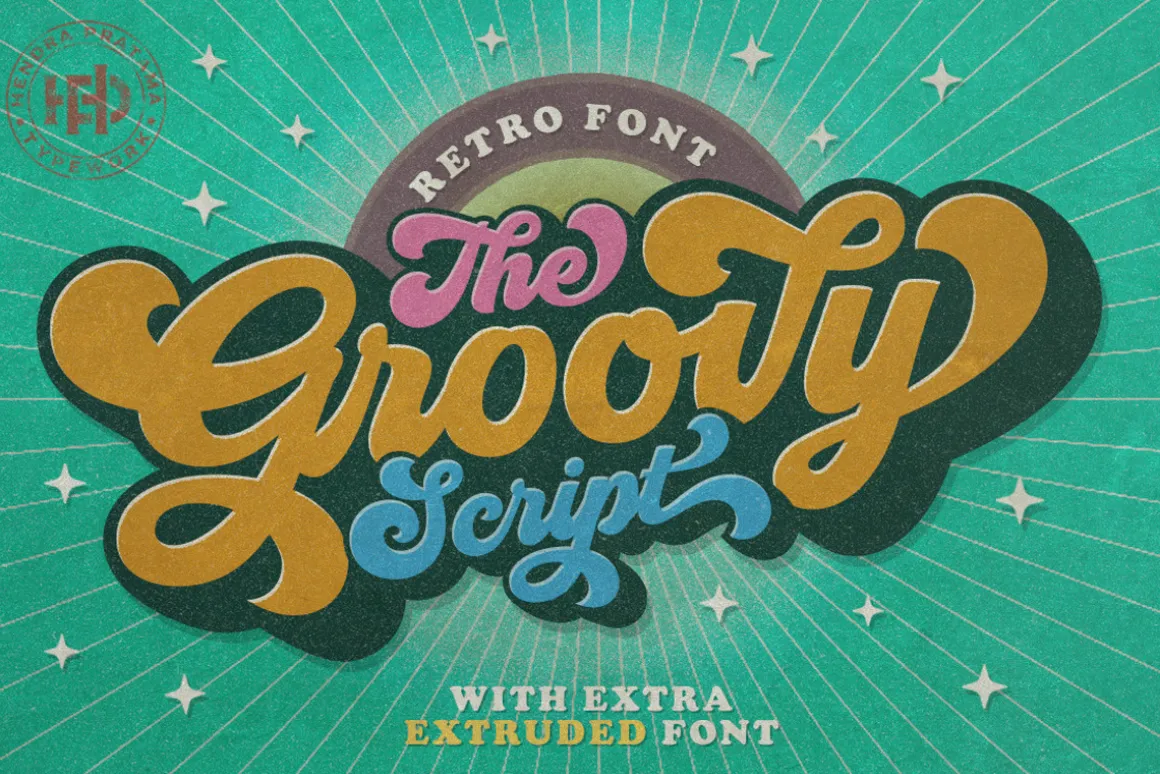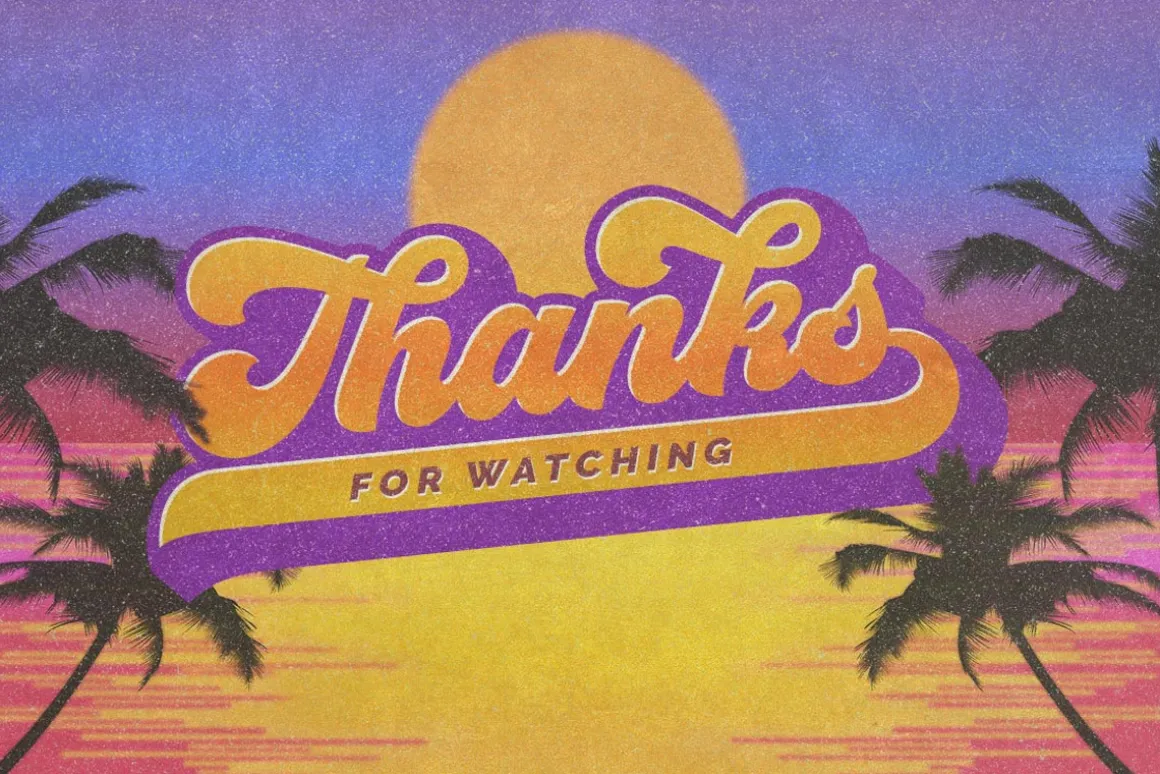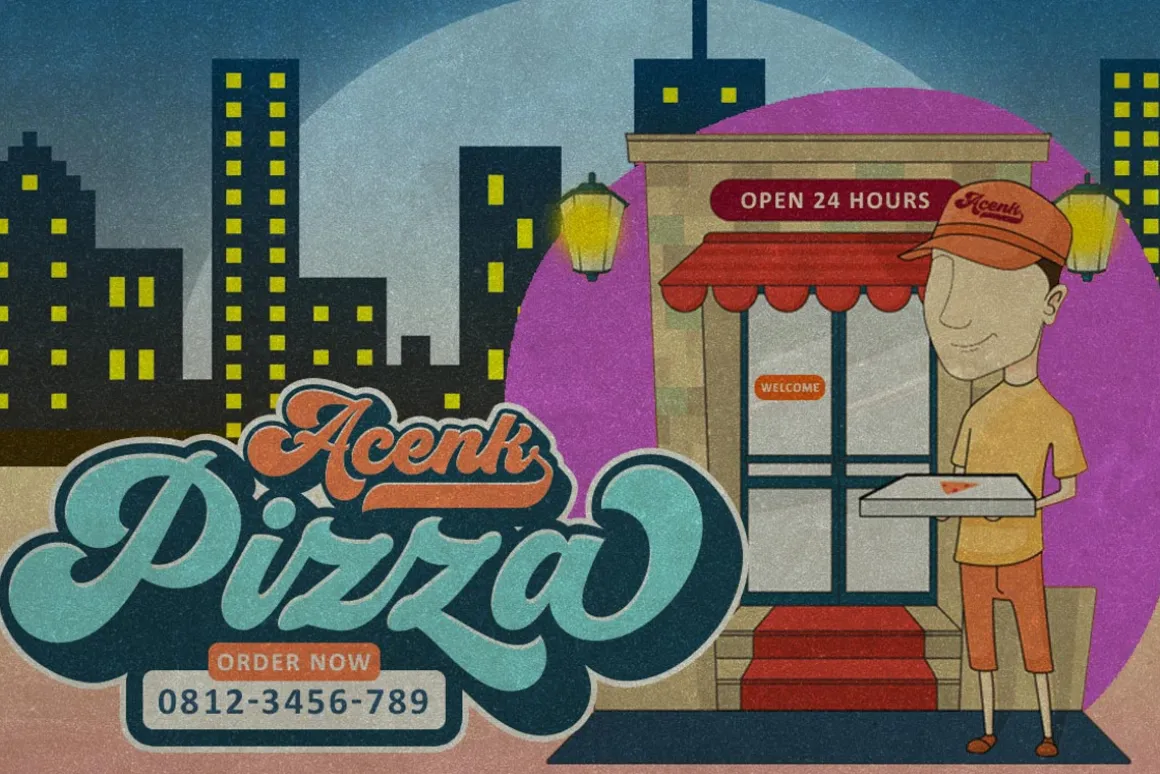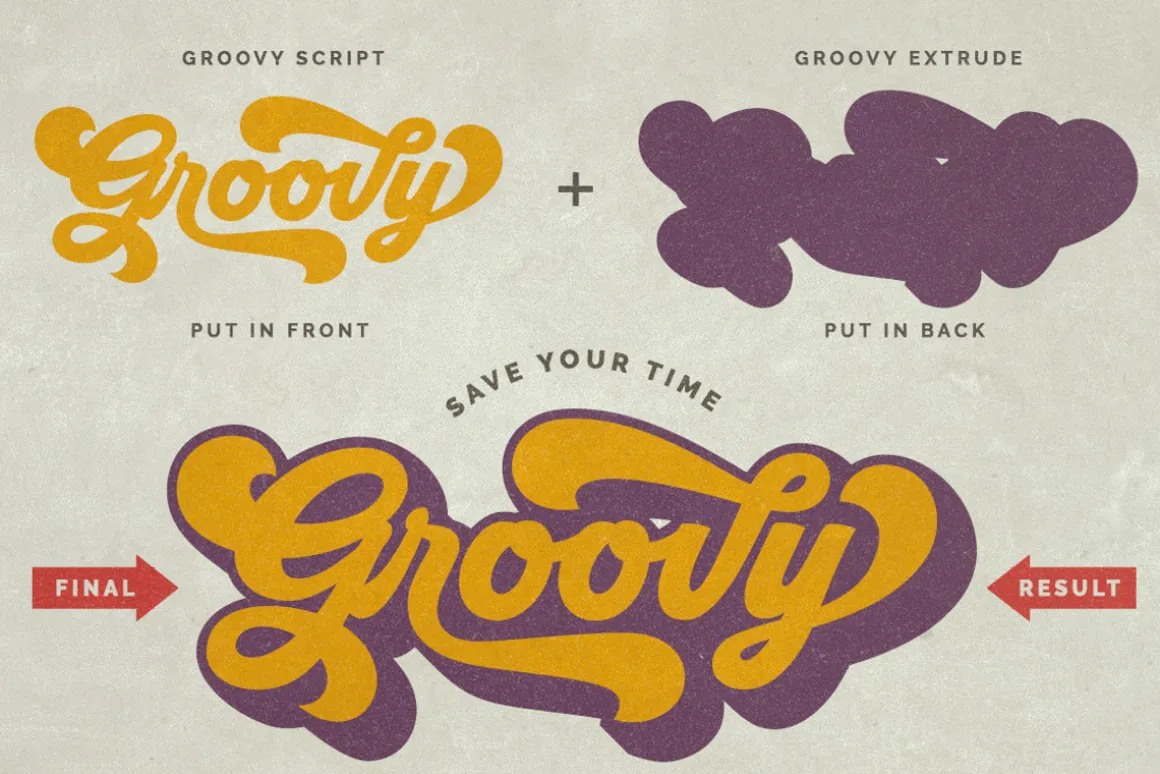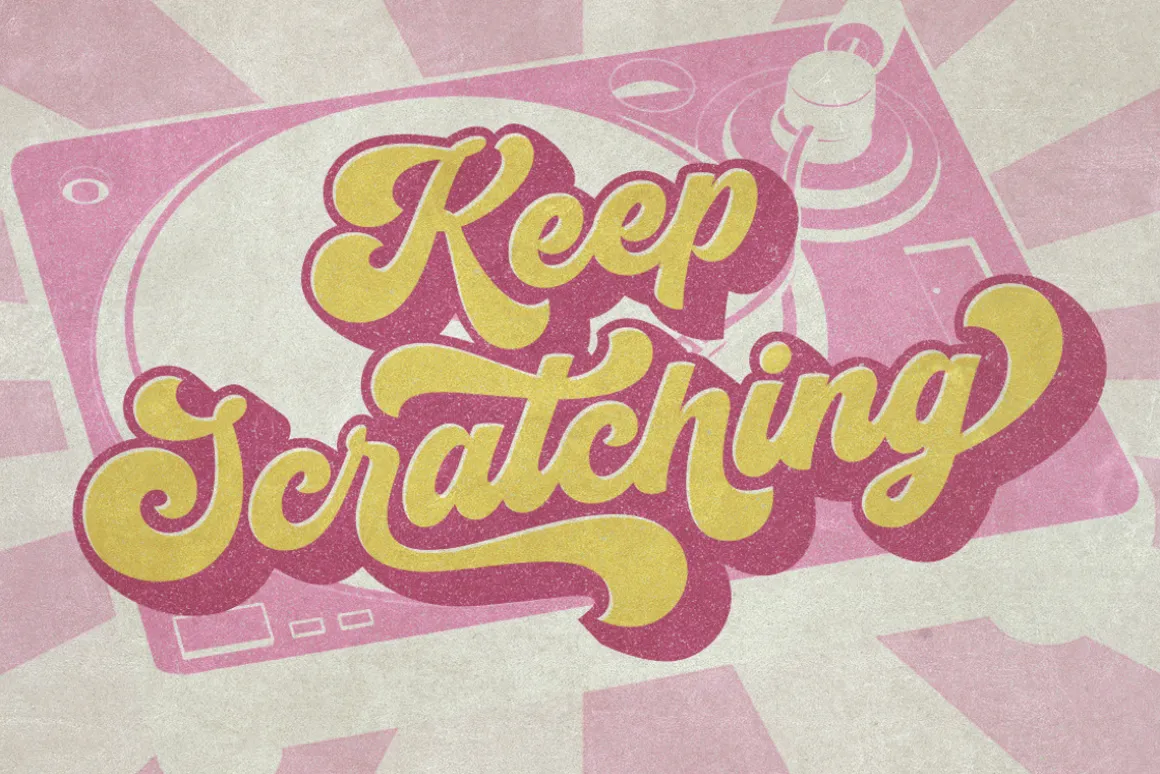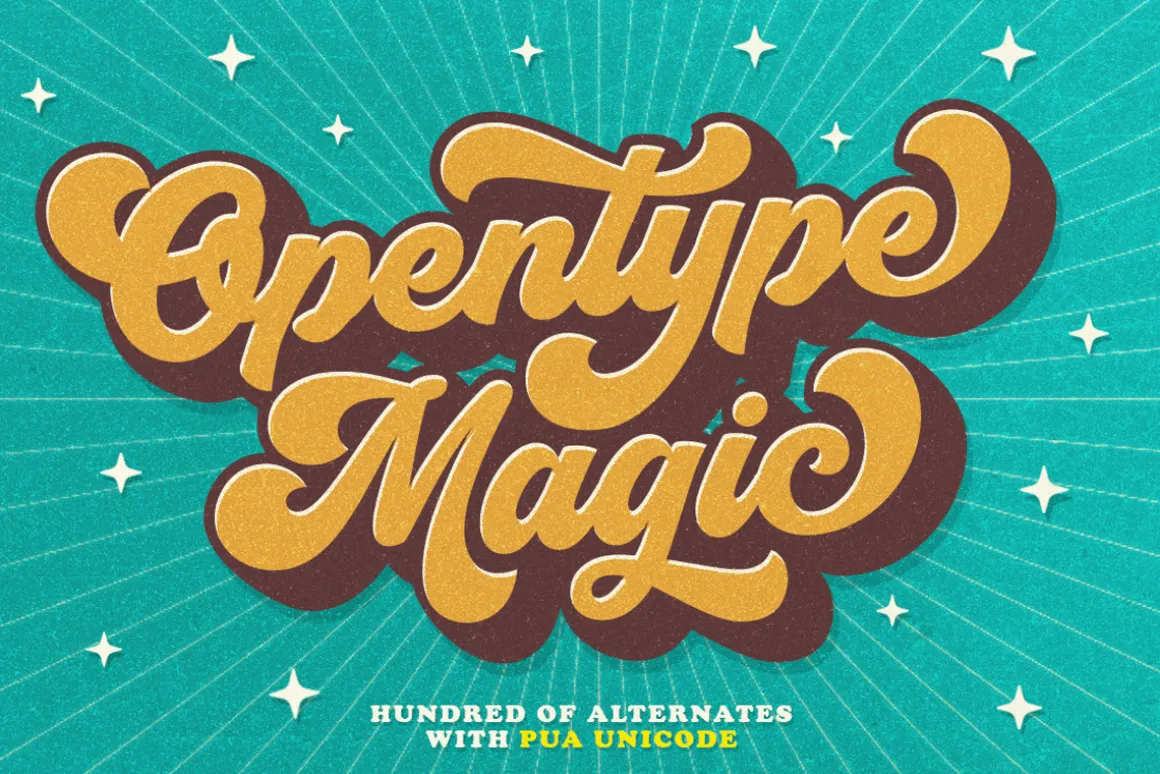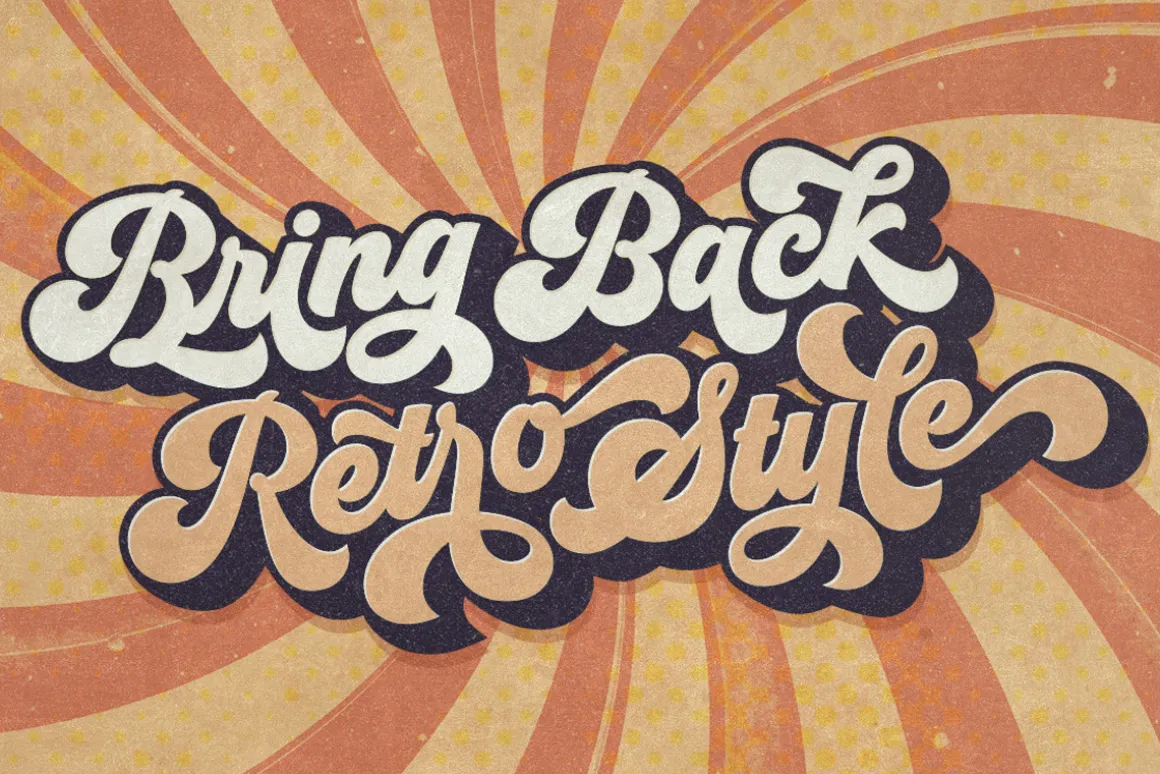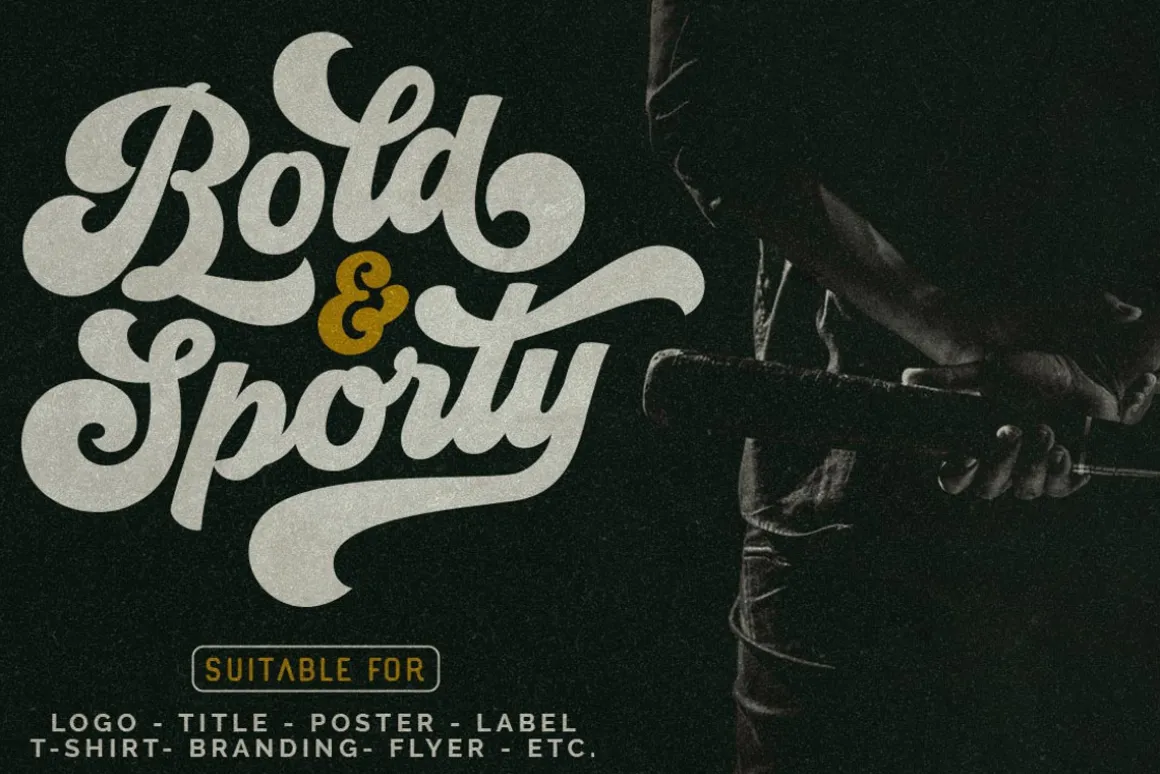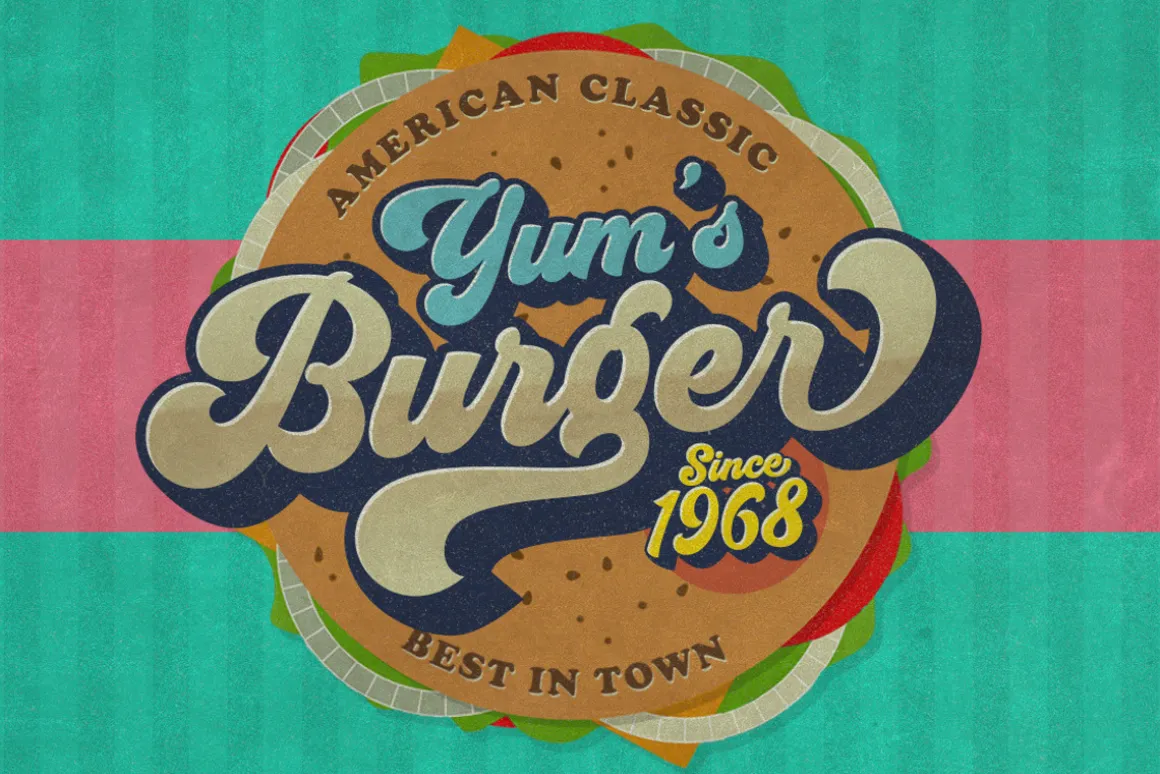
Give your typography design with a touch of retro style with Groovy!
Groovy is one of my fonts based on a hand lettering project in 2017.It was very inspired from the famous retro typography designs in late 60’s untill 70’s.
Groovy also comes with extra Extruded Font version.So you won’t need extra effort for create an extrude effect for this font.This mean it will saves your time.
Total 593 glyphs was crafted inside GroovySome OpenType Features also added to this bold and sporty font.
The Features includes:Stylistic Alternates, Swashes, Ligatures, Contextual and Stylistic Set.You can pick the alternate for subtitution up to 21 variant per-letter.